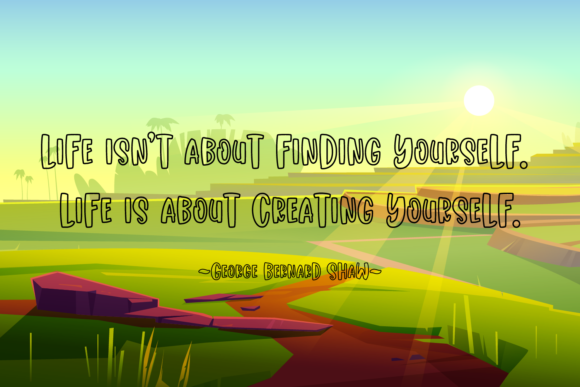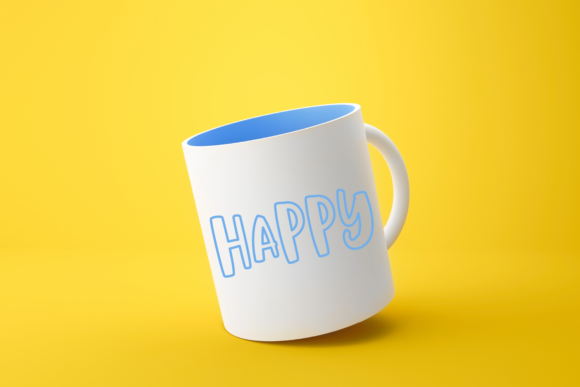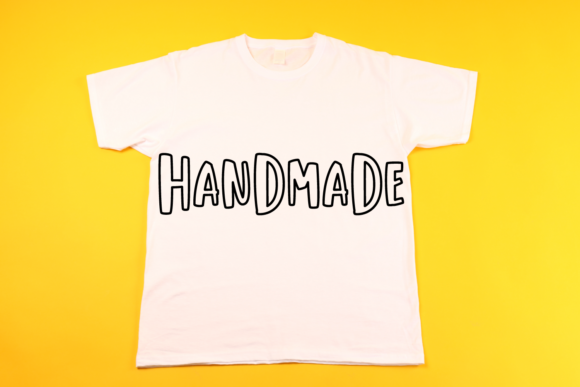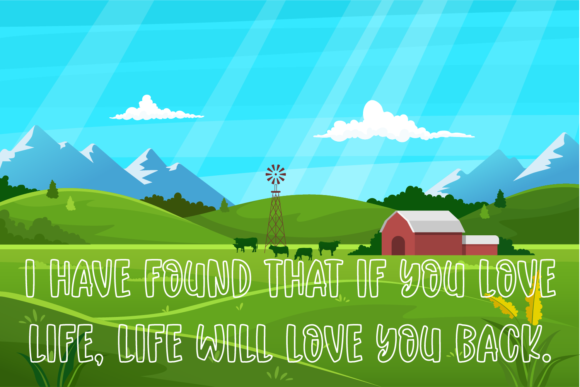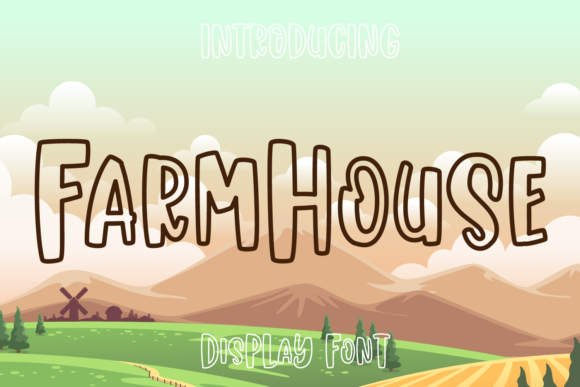
Introducing Farmhouse Font: Elevate Your Designs with a Modern Outlined Display Font
In the world of typography, a font can make or break a design. For designers and crafters looking for a stylish and readable font to elevate their projects, look no further than Farmhouse Font. This modern outlined display font is perfect for fashion branding, editorial designs, and more. With its unique blend of style and legibility, Farmhouse Font is sure to become a go-to choice for creatives.
Farmhouse Font is a modern outlined display font that boasts a clean and stylish aesthetic. Its outlined design gives it a distinctive look that’s perfect for making a statement in fashion branding, editorial designs, and other creative projects. Whether you’re looking to add a touch of sophistication or a dash of playfulness to your designs, Farmhouse Font is the perfect choice.
- Readable and Stylish: Farmhouse Font is designed to be both readable and stylish, making it perfect for use in a variety of design projects.
- Modern Outlined Design: The font’s outlined design gives it a modern and sleek look that’s perfect for fashion branding and editorial designs.
- Versatile: Farmhouse Font can be used in a variety of design projects, from fashion branding and editorial designs to packaging and advertising.
- Easily Customizable: The font is easily customizable, allowing you to adjust the size, color, and style to suit your design needs.
Why Choose Farmhouse Font?
So, why choose Farmhouse Font for your design projects? Here are just a few reasons why this font stands out from the rest:
- Unique and Eye-Catching: Farmhouse Font’s outlined design makes it a unique and eye-catching choice for designers looking to make a statement.
- Highly Legible: Despite its stylish design, Farmhouse Font is highly legible, making it perfect for use in body text and other applications where readability is key.
- Perfect for Fashion Branding: The font’s stylish and modern design makes it perfect for use in fashion branding, from logo design to packaging and advertising.
How to Use Farmhouse Font in Your Designs
Using Farmhouse Font in your designs is easy. Here are a few tips to get you started:
- Pair it with Other Fonts: Farmhouse Font pairs well with a variety of other fonts, making it easy to create a cohesive look in your designs.
- Experiment with Colors: The font’s outlined design makes it easy to experiment with different colors and color combinations.
- Use it for Headings and Titles: Farmhouse Font is perfect for use in headings and titles, where its stylish design can really shine.
In conclusion, Farmhouse Font is a modern outlined display font that’s perfect for designers and crafters looking to elevate their designs. With its unique blend of style and legibility, this font is sure to become a go-to choice for creatives. Whether you’re working on a fashion branding project, an editorial design, or something else entirely, Farmhouse Font is a great choice. So why wait? Add Farmhouse Font to your projects today and see the difference it can make!
So, add it confidently to your projects, and you will love the results. The font will make your designs more stylish and attractive. You can use it for a variety of design projects, from fashion branding and editorial designs to packaging and advertising. The possibilities are endless with Farmhouse Font.